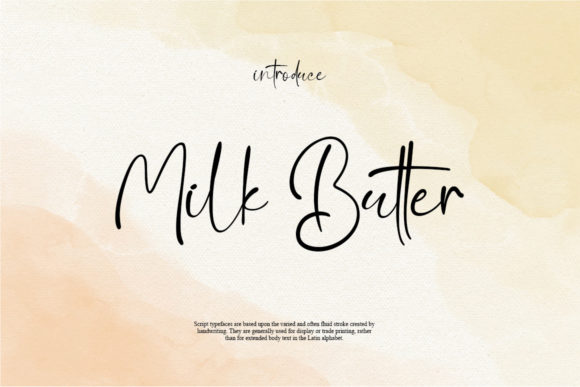
Indulge in the captivating Milk Butter Font, a masterpiece of digital art designed to elevate your designs to new heights. This enchanting script typeface is a symphony of beauty and versatility, perfectly suited to express your creativity and make an unforgettable impact.
With its exquisite handwritten charm, Milk Butter Font is the embodiment of elegance and grace. Its delicate swashes dance across the page like a gentle breeze, adding a touch of whimsy and femininity to your creations. Experience the joy of crafting love letters, designing enchanting invitations, or creating personalized stationery that will leave a lasting impression.
The Milk Butter Font is not just a tool, but an extension of your artistic vision. Its PUA encoding empowers you to effortlessly access the full range of glyphs and swashes, unleashing a world of creative possibilities. Each character is a work of art, meticulously crafted to convey emotion and captivate your audience.
Whether you're a seasoned designer or a passionate hobbyist, the Milk Butter Font is your passport to a world of endless possibilities. Its versatility knows no bounds, making it the perfect choice for a myriad of projects. From graceful logos and enchanting branding to heartfelt social media posts, this font will elevate your designs to new heights.
Let the Milk Butter Font be your muse and embark on a creative journey that will inspire, captivate, and leave an unforgettable mark. It's the essential tool for designers who crave beauty, originality, and the power to make their creations stand out from the crowd.